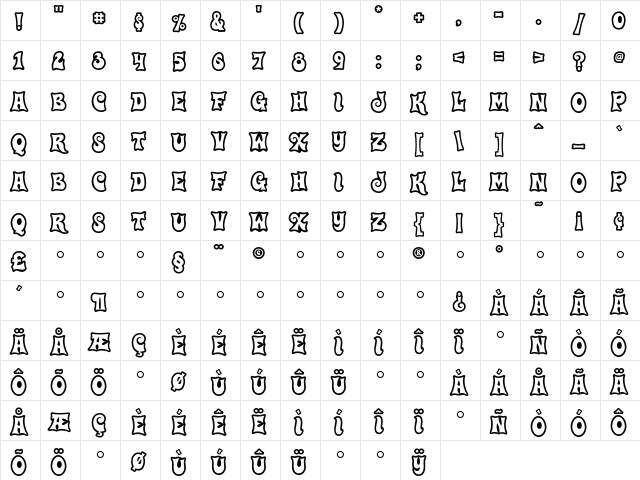
Haulnhouse Outline
| Style | Outline |
Design Context for Haulnhouse Typeface
Haulnhouse is built around its visual character rather than neutral utility — its distinctive forms are designed to make an impression at display sizes.
Font Pairing: Pair with a clean neutral sans-serif for body copy to let Haulnhouse's character lead without overwhelming the composition.
Pro Tip: Use Haulnhouse exclusively at display sizes — it was designed to be seen, not read at length. Let a neutral companion handle body copy.